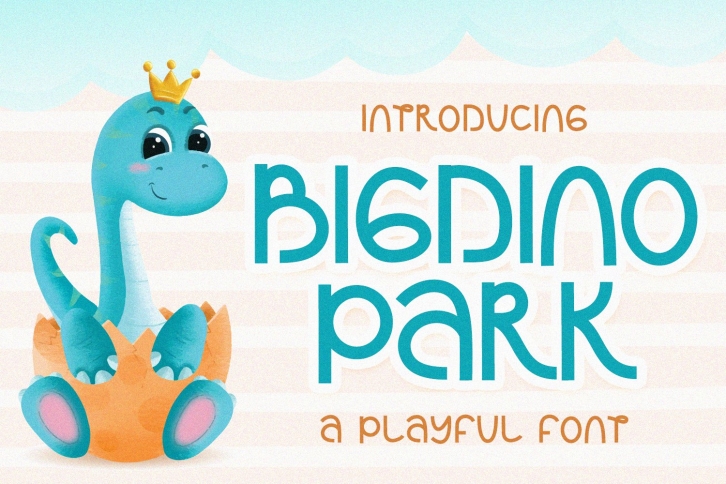
Bigdino Park is a beautiful font that was designed by Alpaprana Studio. It's a great choice for designers and creatives who need such a font. It was released on April 3, 2021 and the file size is 13.50 MB. Bigdino Park may give a more youthful, expressive and casual look to your project. It is a very beautiful, refined, elegant, and high-quality font.